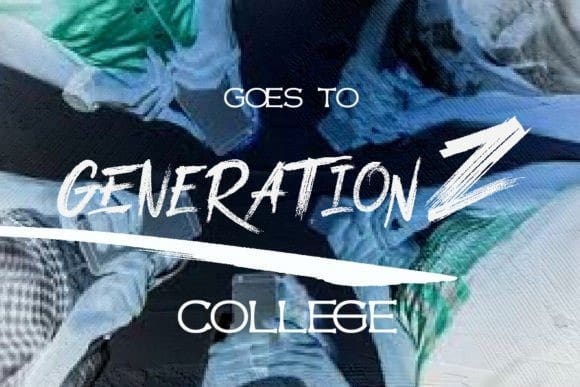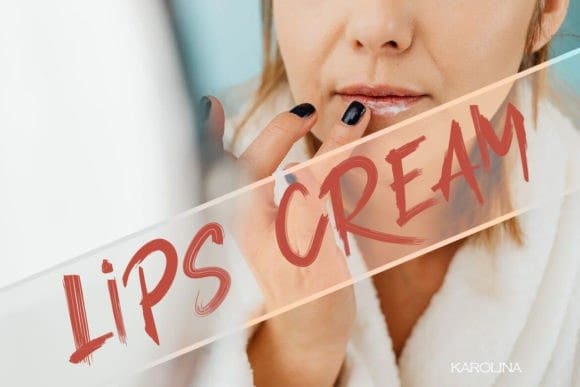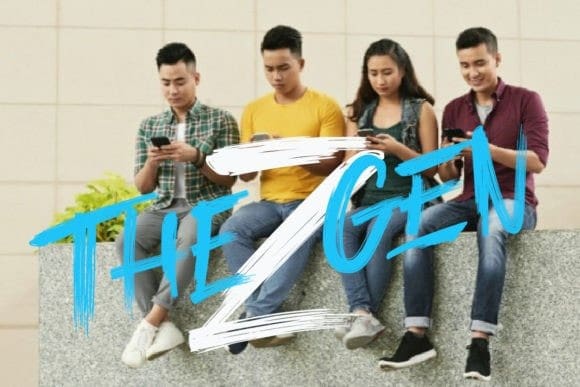
The Genz Font
The Genz Font is a deep brush and timeless handwritten font. It is the best choice for creating eye catching logos, branding and design.This font is suitable for designs such banner, photography as t-shirts, magazine, logos, advertisements, clothing, and more.. This font is PUA encoded which means you can access all of the glyphs and swashes with ease!